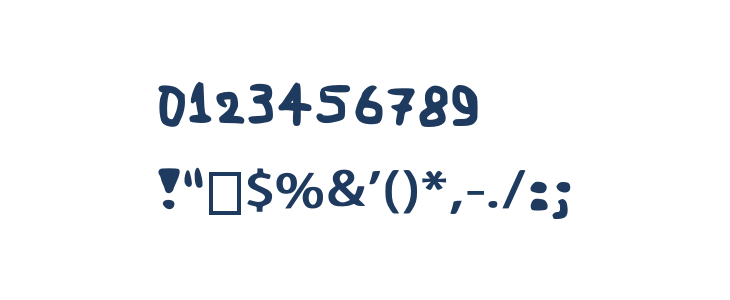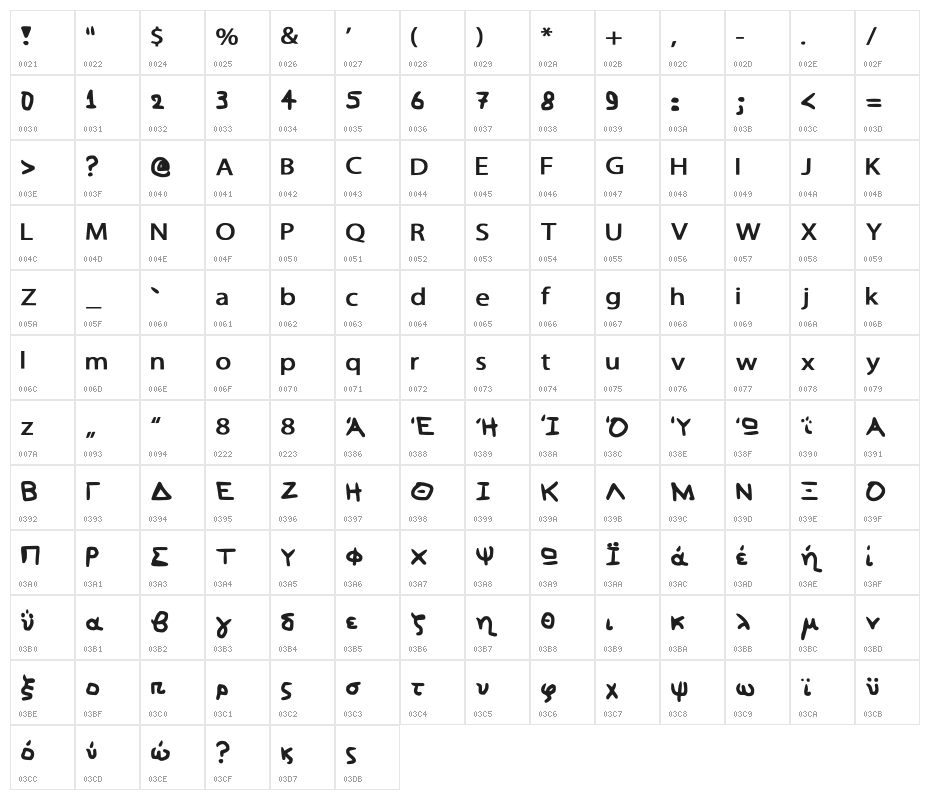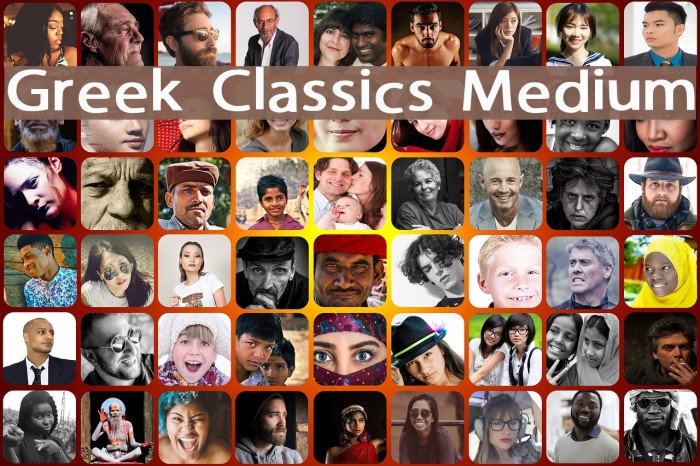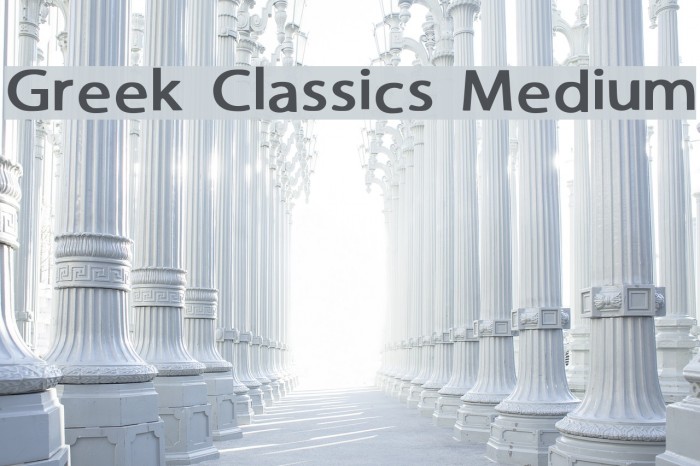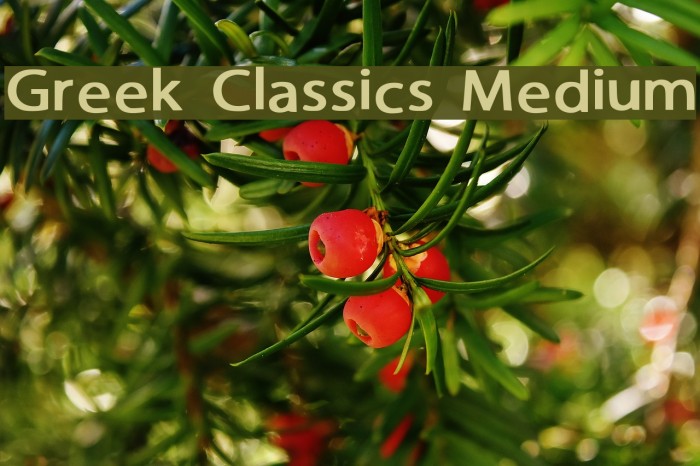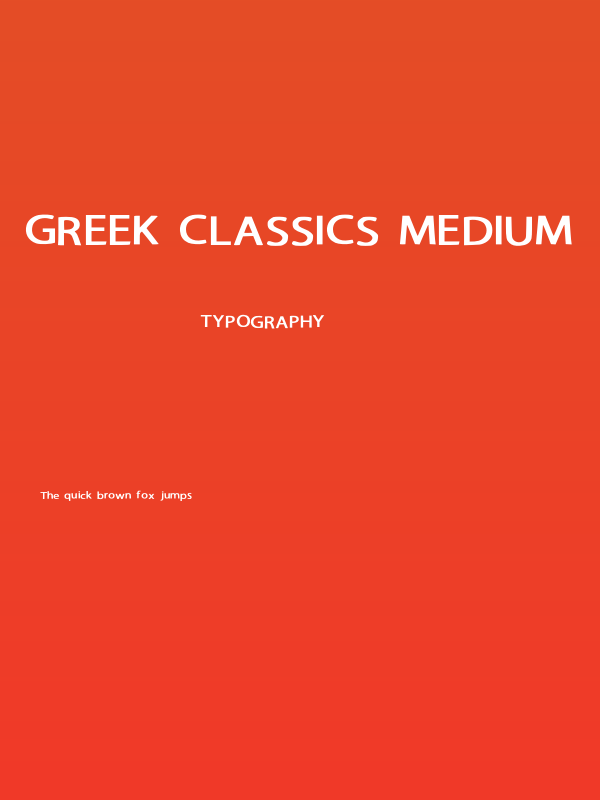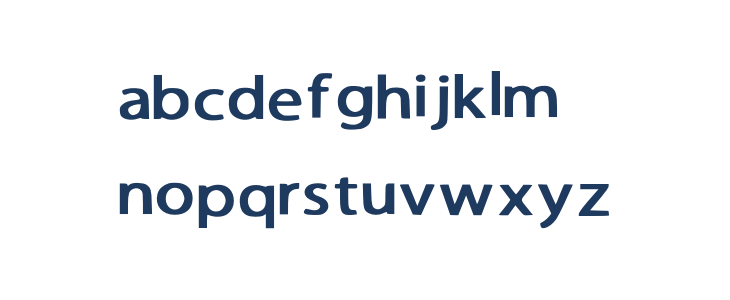
Greek Classics Medium Font
Greek Classics Medium Description
This font features a clean and modern design with a slight nod to classical Greek aesthetics. The uppercase letters are bold and well-defined, with a consistent stroke width that gives them a strong presence. The lowercase letters maintain a similar style, with rounded edges that add a touch of softness to the overall look. The numerals are distinct and easy to read, with a slightly playful character that complements the alphabet. Special characters are well-integrated, maintaining the font's cohesive appearance. This typeface is versatile, suitable for a variety of design projects that require a contemporary yet timeless feel.